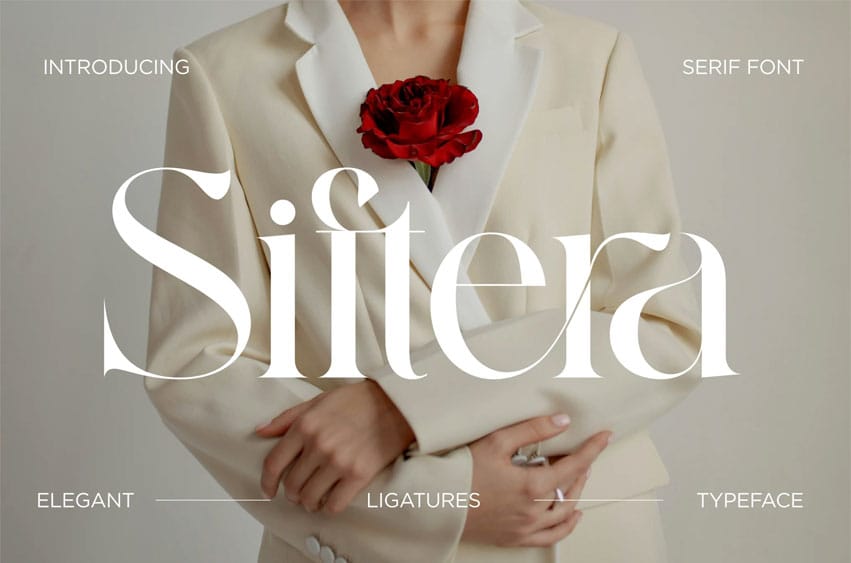
Siftera Font is a contemporary serif designed with gentle sophistication. Merging classic serif structure with warm, rounded terminals and low stroke contrast, it conveys both formality and approachability—perfect for creating soft, elegant designs.
Key Characteristics
- Soft Stroke Contrast & Rounded Serifs Inspired by softer serif styles like Souvenir, which is known for its “laid-back” look with minimal thick-thin contrast and rounded detail, Siftera offers a calm, inviting feel without compromising serif clarity.
- Warm and Friendly Aesthetic. The gentle curves and subtle flared endings evoke a comforting, human tone—ideal for projects that need a reassuring and elegant touch.
- OpenType Features: Ligatures & Alternates Equipped with refined ligatures and stylistic alternates, Siftera enhances visual cohesion and adds character, particularly in display usage such as headlines, quotes, or logos.
- Multilingual & Full Glyph Set Comprehensive language support (Latin accents, numerals, punctuation) makes Siftera practical for diverse contexts across print and digital media.
Ideal Use Cases
- Soft Branding & Packaging Great for organic or feminine brands—skincare, boutique retail, stationery—Siftera’s elegance brings premium warmth.
- Invitations & Editorial Layouts. Its gentle serif design elevates wedding invitations, greeting cards, and magazine spreads with a refined but inviting style.
- Lifestyle & Well‑being Design Use in blogs, wellness apps, or social media visuals to convey calm, sophistication, and trust.